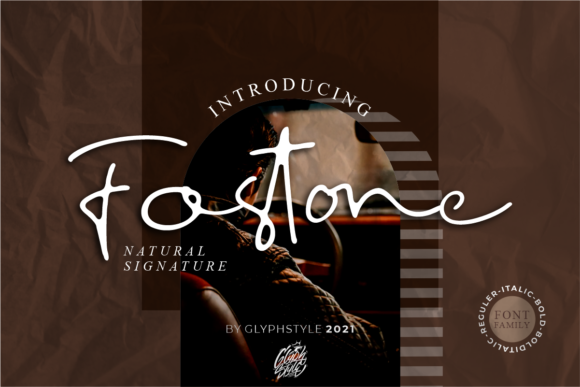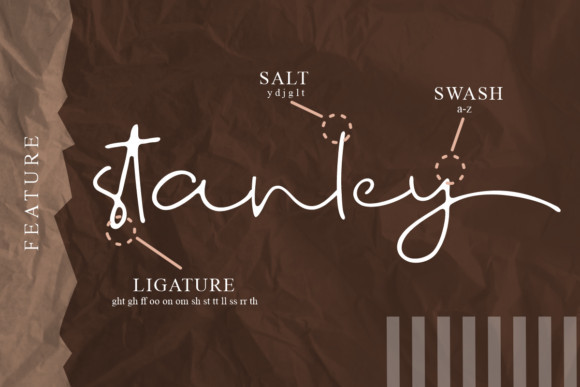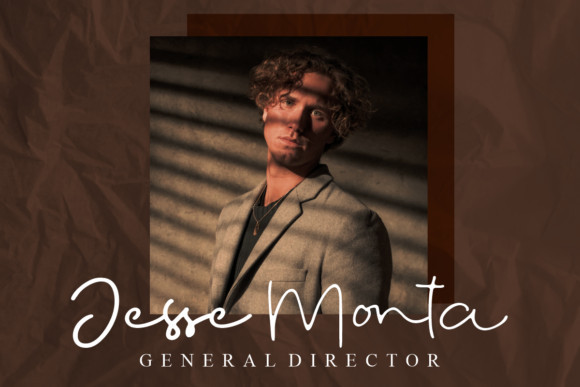
Fostone Font
Fostone Natural Signature is a cute and dainty handwritten font. Its sweet and full of life style makes this font a wonderful choice for brightening up your designs. This font is PUA encoded which means you can access all of the glyphs and swashes with ease!